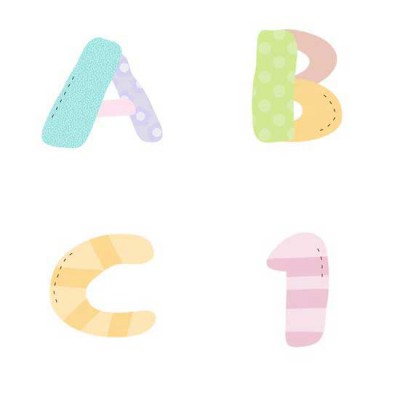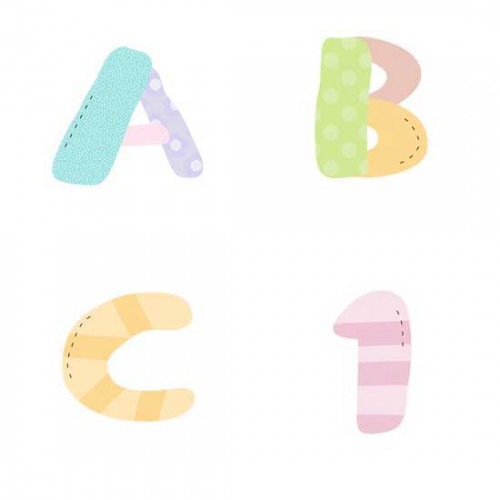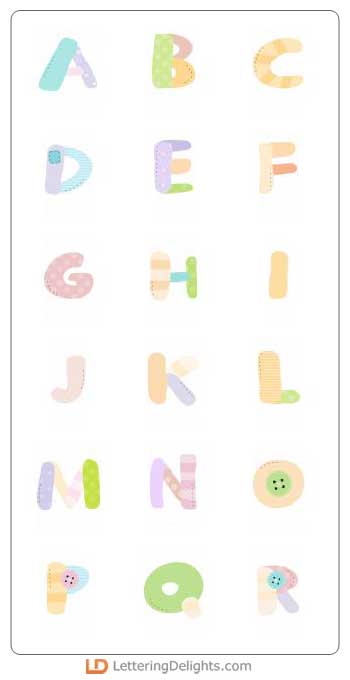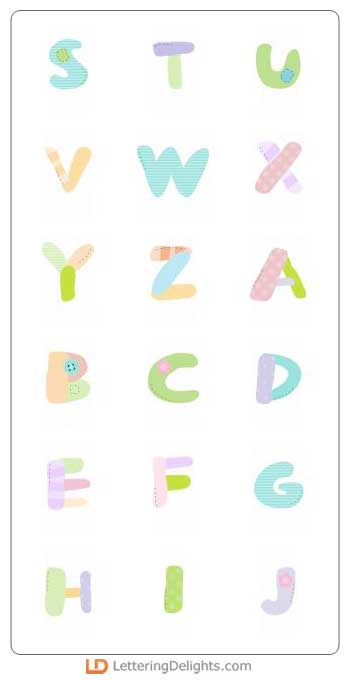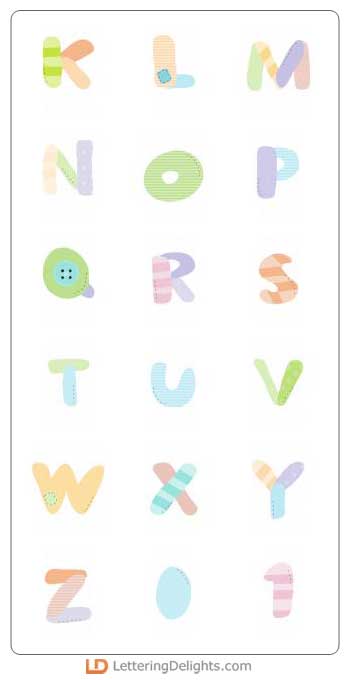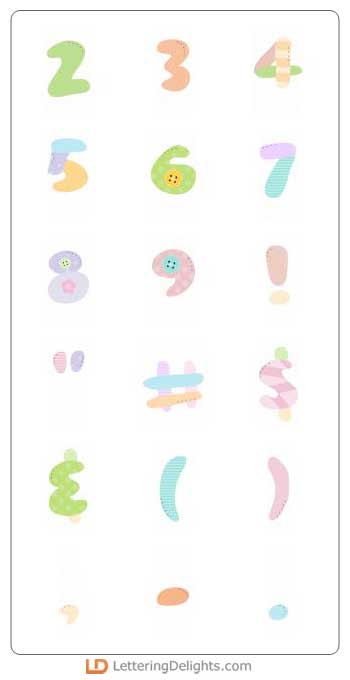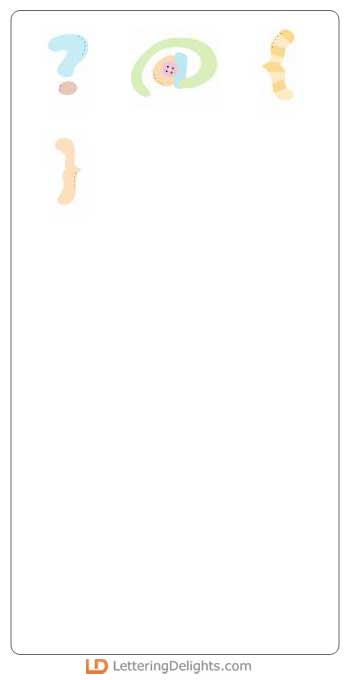
Jillustration's Spring Buddies Alphabet is a delightful way to express yourself. With a little stitch here, and a button or flower there, add a bit of cozy communication to all your creations.